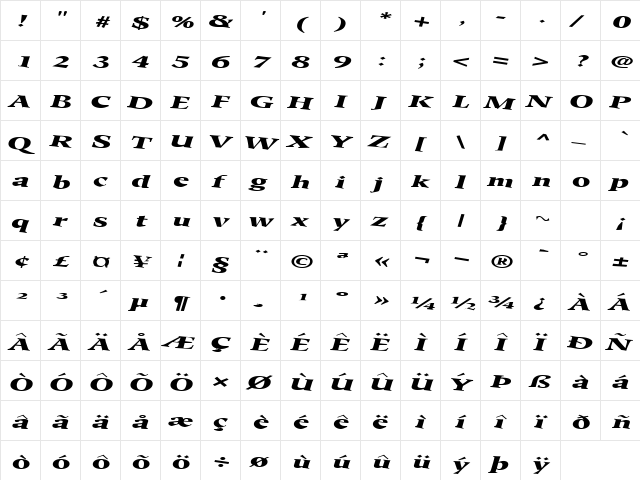
Pet Regular
Design Context for Pet Typeface
Pet offers clean, dependable letterforms without strong stylistic allegiance, making it a practical choice for designers who need flexibility.